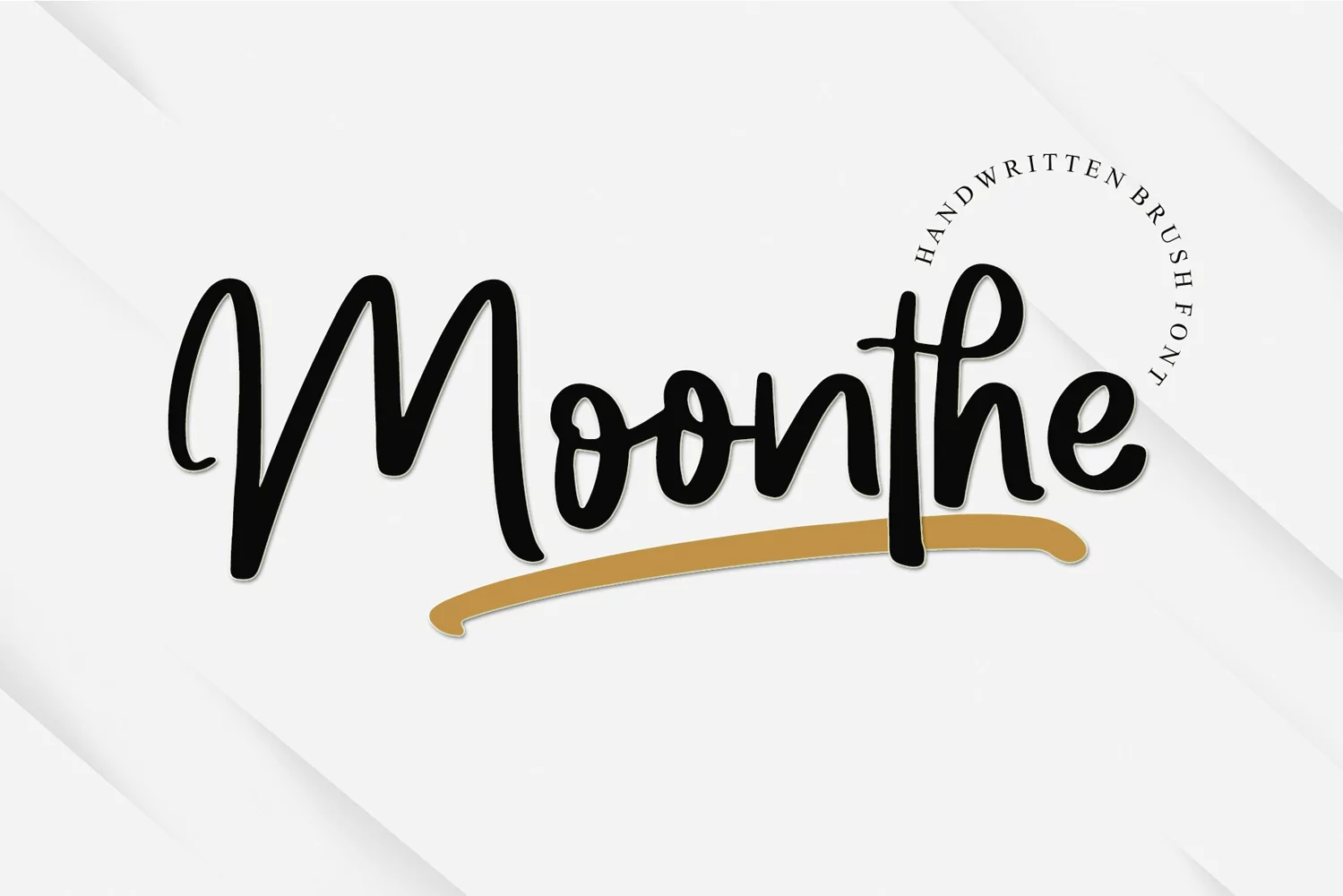
Beautiful Handwritten
Moonthe is a natural and fresh handwritten display font. It is a tough-looking typeface with a strong brush touch, ready to rock every design you want to create. It is perfect for logos, quotes, posters, clothing, and so much more! Add it to any of your creative projects, and be amazed by the generated outcome!